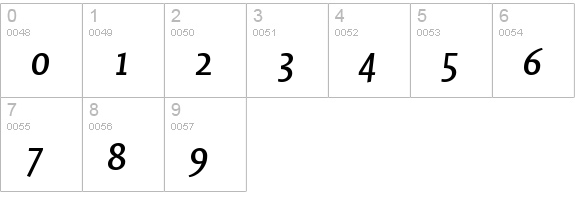
Sheriff-Italian Font Details
Sheriff-Italian font is a captivating and elegant typeface that will instantly transport you to the charming streets of Italy. With its delicate and graceful strokes, this font exudes a sense of sophistication and timeless beauty. Every letter is meticulously crafted, showcasing the artistry and attention to detail that went into its creation. The Sheriff-Italian font is perfect for adding a touch of Italian flair to your designs. Whether you're creating invitations for a Tuscan-inspired wedding, designing a menu for an Italian restaurant, or crafting a logo for a high-end fashion brand, this font will elevate your work to new heights. What makes Sheriff-Italian font even more remarkable is that it is available for free! That's right, you can download this exquisite font without spending a dime. FontsMarket.com is proud to offer this beautiful typeface as a free download, allowing designers and creatives around the world to access its charm and elegance. So, why wait? Don't miss out on the opportunity to enhance your designs with the Sheriff-Italian font. Head over to FontsMarket.com today and download this captivating typeface for free. Embrace the beauty of Italy and let Sheriff-Italian font bring a touch of Mediterranean sophistication to your projects.